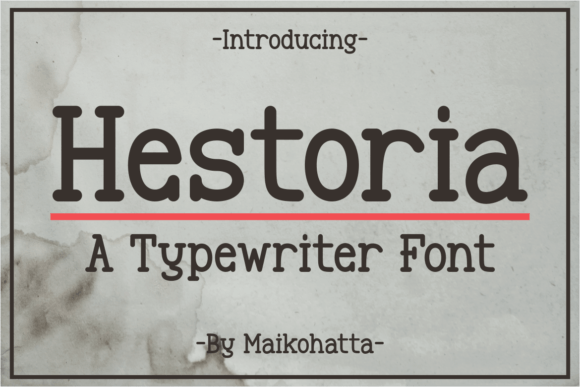
Looking for the perfect font to elevate your banner designs? Look no further than Hestoria Font! This extraordinary serif font, created by the talented maikofarazhatta, seamlessly blends the timeless elegance of traditional serifs with the charming nostalgia of a typewriter. Prepare to be captivated by its unique aesthetic and its ability to transport any design into the realms of classic beauty.
Hestoria Font is a true gem in the world of typography, offering a distinct and eye-catching appeal that is hard to resist. Its carefully crafted letters exude a sense of nostalgia and evoke memories of simpler times. Whether you're designing a vintage-inspired poster, a retro logo, or a captivating social media graphic, this font will effortlessly add that touch of sophistication and old-world charm.
With Hestoria Font, every character has been meticulously designed to perfection. Its flawlessly aligned serifs and precise letterforms ensure legibility and clarity, making it an ideal choice for any text-heavy design project. Whether you're creating a striking headline or a body of text, this font will bring your words to life, captivating your audience and conveying your message with elegance.
One of the most remarkable aspects of Hestoria Font is its versatility. While it excels in vintage and retro designs, it also possesses the power to transform contemporary projects into works of art. By infusing your modern designs with a touch of nostalgia, this font effortlessly bridges the gap between the past and the present, creating a unique and captivating visual experience.
Imagine the impact of your banners when adorned with Hestoria Font. Each letter will exude an air of sophistication, drawing attention and leaving a lasting impression. Whether you're designing for personal or professional purposes, this font will elevate your creations and make them truly memorable.
In summary, Hestoria Font is the epitome of elegance and charm. Its combination of traditional serifs and typewriter aesthetics creates a captivating and unique visual experience. With its versatility and ability to evoke a sense of nostalgia, this font is the perfect choice for any designer looking to create stunning banner designs. Download Hestoria Font today and embark on a journey to timeless beauty and captivating design.